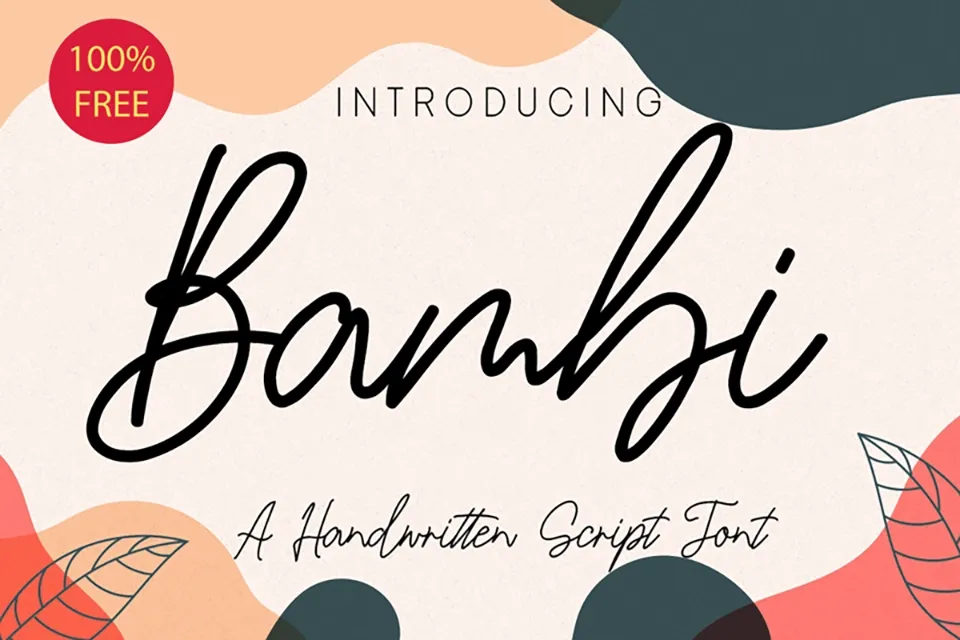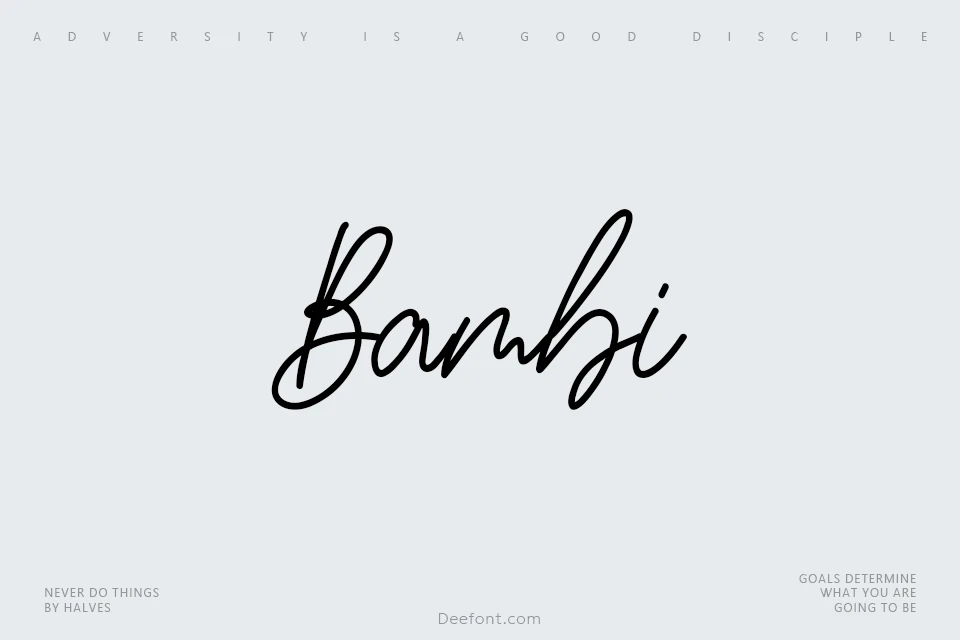
Bambi Handwritten Font
Bambi Handwritten Font is an elegant and flowing script typeface that brings a touch of natural charm to your creative projects. With its graceful curves and smooth connections, this font captures the essence of authentic handwriting while maintaining a polished, professional appearance. Perfect for a variety of applications including branding, social media graphics, wedding invitations, logos, and packaging design, Bambi adds a personal and sophisticated touch to any text. Its versatile style balances casual approachability with refined aesthetics, making it suitable for both playful and elegant compositions. This 100% free font offers designers a beautiful handcrafted option that stands out with its distinctive character and excellent readability.